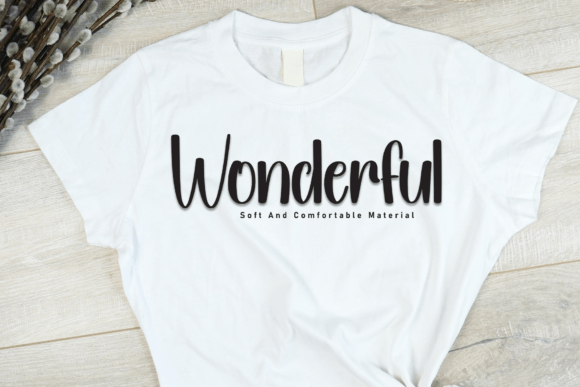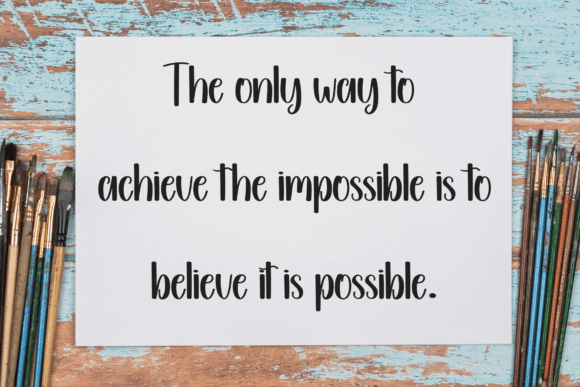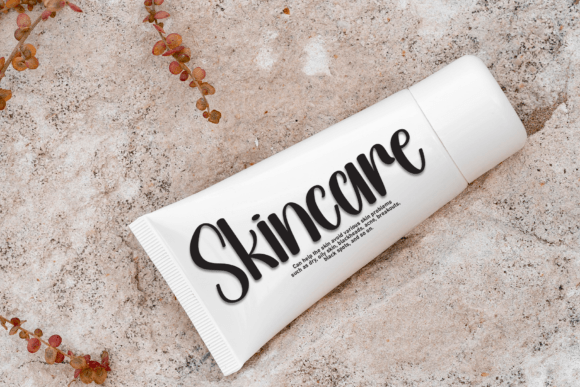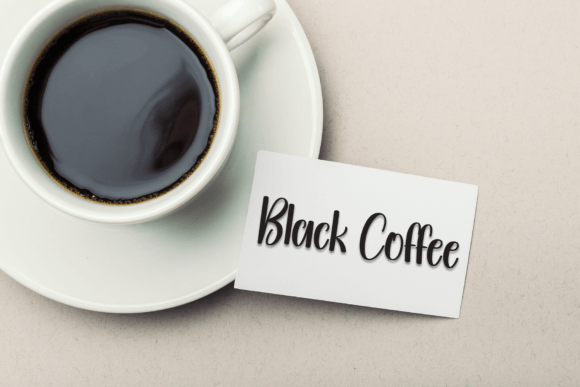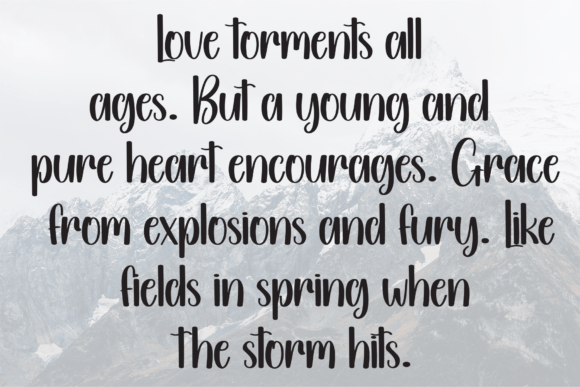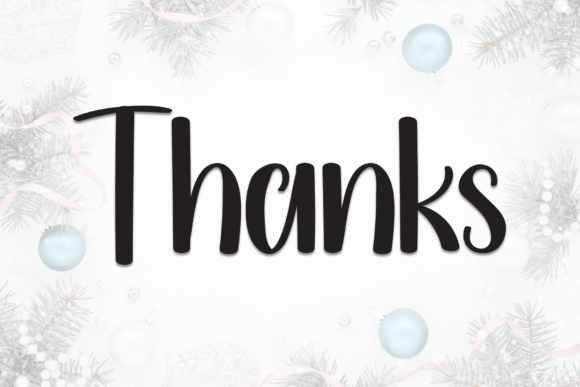
Welcome to the Merriest Time of the Year
As the holiday season approaches, designers start brainstorming ideas for festive projects that spread joy and cheer. It’s that moment when creativity flows, and imagination knows no bounds. You’ve got a concept, and now it’s time to bring it to life with the perfect font. That’s where the Hello Christmas Font comes in – a sweet and friendly handwritten font designed to add a personal touch to your designs.
This charming font is more than just a style; it’s a way to connect with your audience on a deeper level. With its natural and unique flair, the Hello Christmas Font is the perfect tool to infuse your projects with warmth and personality. Whether you’re working on a greeting card, a holiday-themed website, or a festive advertisement, this font will help you stand out from the crowd and make a lasting impression.
Hello Christmas Font Key Features
- Font Family: Hello Christmas Font is a unique, hand-drawn font designed specifically for Christmas and holiday-themed projects.
- Character Set: The font includes a wide range of characters, including uppercase and lowercase letters, numbers, punctuation, and special characters.
- Unique Characteristics: The font features a whimsical, hand-drawn design with intricate details and ornaments, making it perfect for adding a touch of festive charm to your designs.
Hello Christmas Font Review
First off, let me say that the Hello Christmas Font has a certain charm to it ✨. The font’s festive feel is perfect for the holiday season, with bold, playful letterforms that evoke a sense of warmth and joy. The font’s design is also quite versatile, making it suitable for a wide range of applications, from digital invitations to print ads.
Some of the key strengths of this font include:
- Comprehensive character set, including punctuation and special characters
However, I do have a few concerns about the font’s limitations ⚠️. For example:
- Limited customization options, which may not appeal to designers looking for more control
- No italic or oblique styles, which may limit its use in certain applications
Overall, I think the Hello Christmas Font is a great choice for anyone looking to add a touch of festive flair to their design projects ✨. While it may not be the most versatile font on the market, its strengths make it a worthwhile investment for designers and non-designers alike.
Getting the Most Out of the “Hello Christmas Font”
To get the most out of the “Hello Christmas Font”, use it in combination with festive graphics and colors to create a holiday-themed design.
Consider using the font in conjunction with other holiday-themed fonts to add depth and variety to your design.
The “Hello Christmas Font” is commonly used in holiday greeting cards, social media posts, and advertisements.
It’s also used in gift tags, party invitations, and other holiday-themed materials.